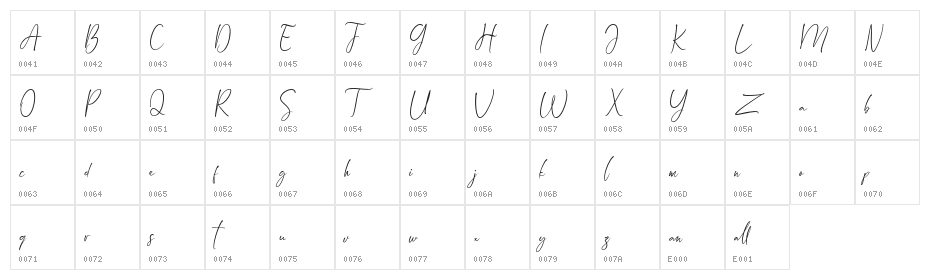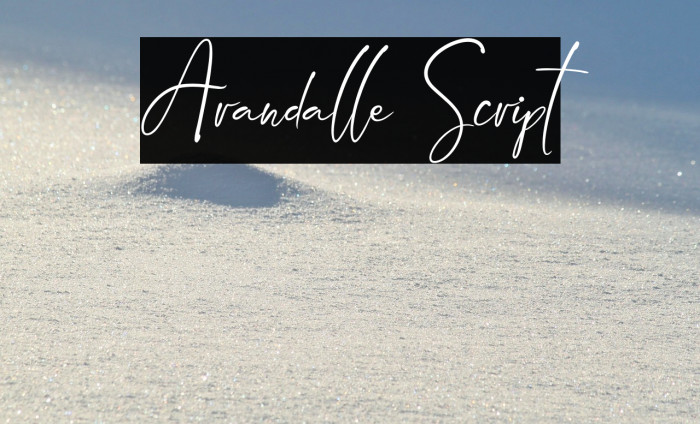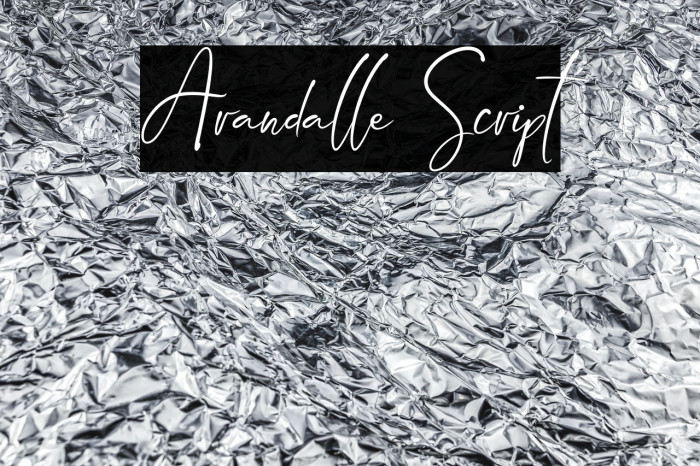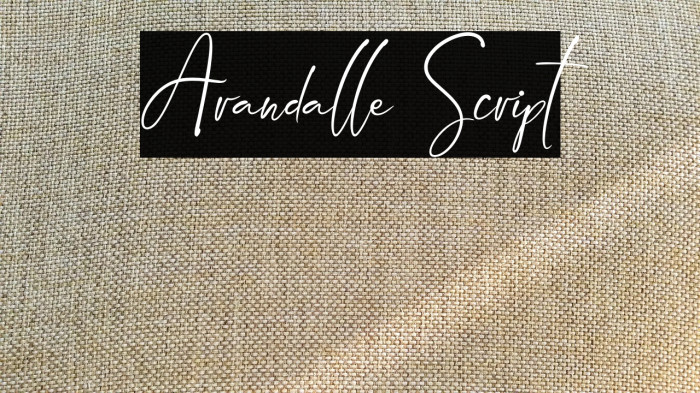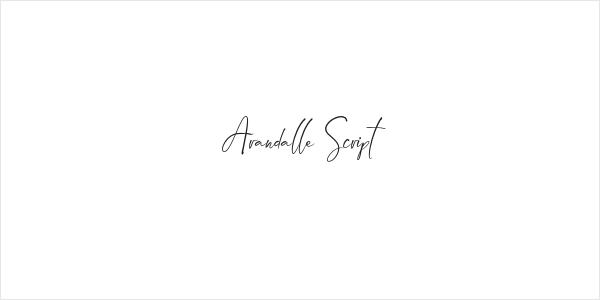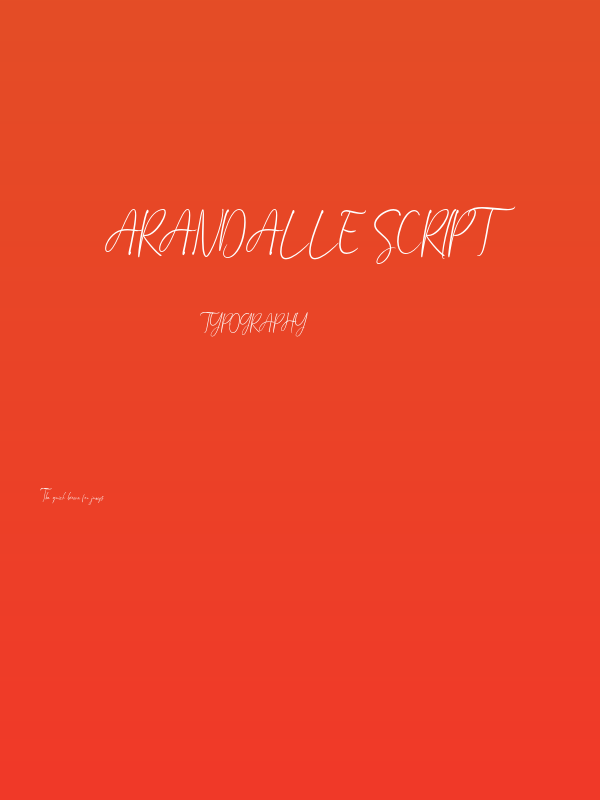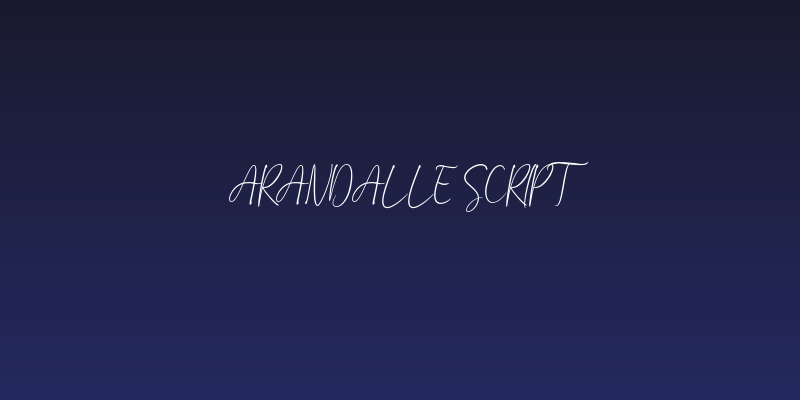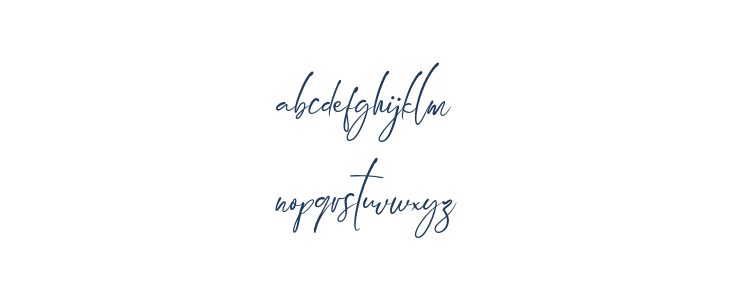
Arandalle Script Font
Arandalle Script Description
This elegant script font features flowing, interconnected letters that mimic the fluidity of handwriting. The uppercase letters are tall and graceful, with sweeping curves and delicate loops, while the lowercase letters maintain a consistent style with subtle variations in stroke width. The font exudes a sense of sophistication and charm, making it ideal for formal invitations, branding, and decorative purposes. The characters are well-spaced, allowing for readability while maintaining an artistic flair. The absence of special characters in the image suggests a focus on alphabetic representation.
| Overall Style | Elegant, Sophisticated |
| Use Case | Headlines, Invitations, Branding |
| Proposed Projects | Ideal for wedding invitations, elegant branding, greeting cards, and decorative projects. |